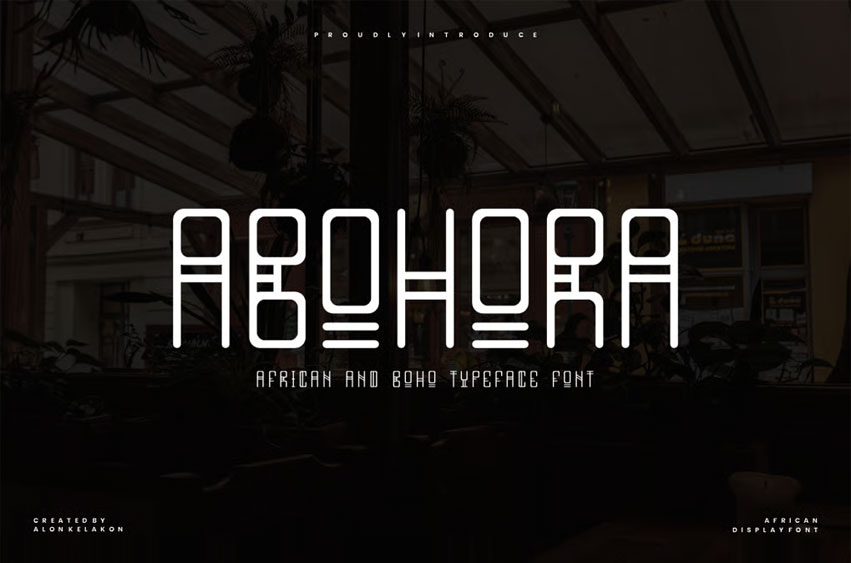
Abohora Font
Abohora Font is a unique and stylish display typeface inspired by the rich and intricate patterns of African art and the free-spirited aesthetic of bohemian design. This font combines bold, geometric shapes with a modern, clean look, making it perfect for a wide range of creative projects.
With its distinctive style, ABOHORA is ideal for branding, logos, posters, headlines, social media graphics, and apparel design. Its strong presence and cultural feel will add a memorable and authentic touch to any design. The font includes uppercase letters, numbers, and a comprehensive set of punctuation marks, offering great versatility for your projects.
• Full set of uppercase letters
• Numbers, symbols, and punctuation